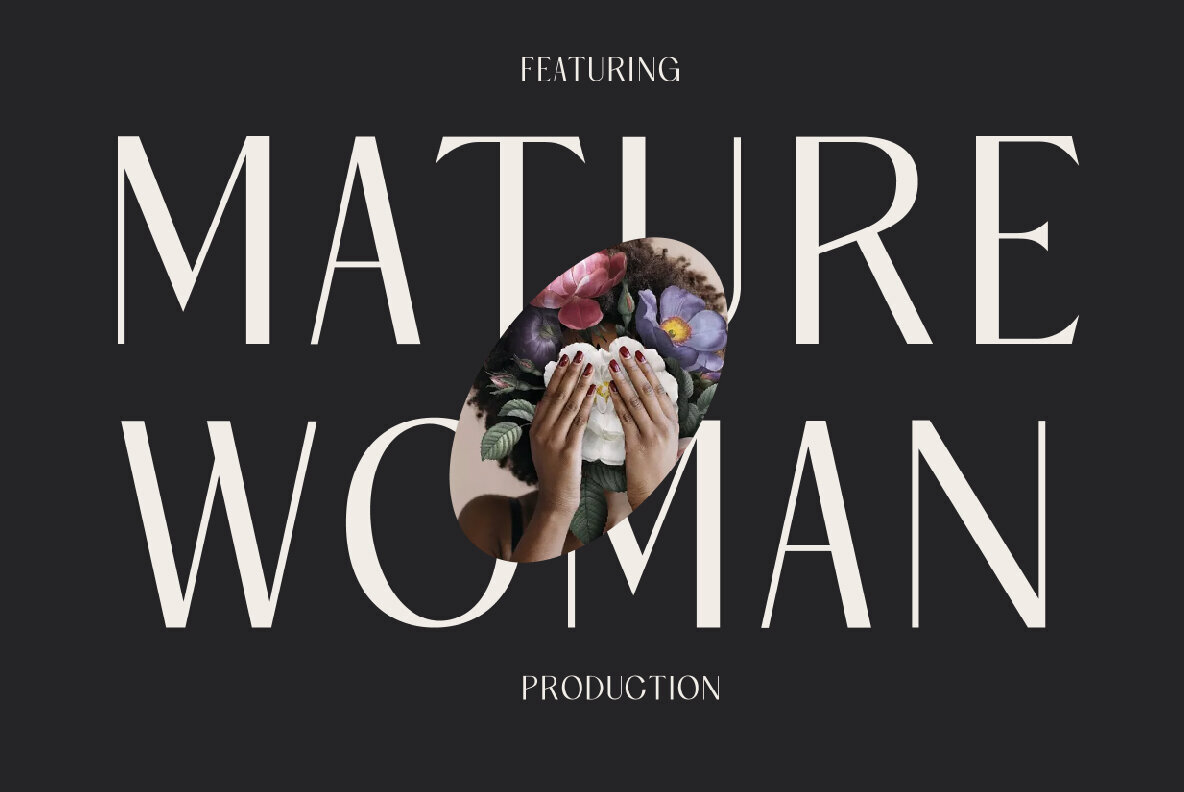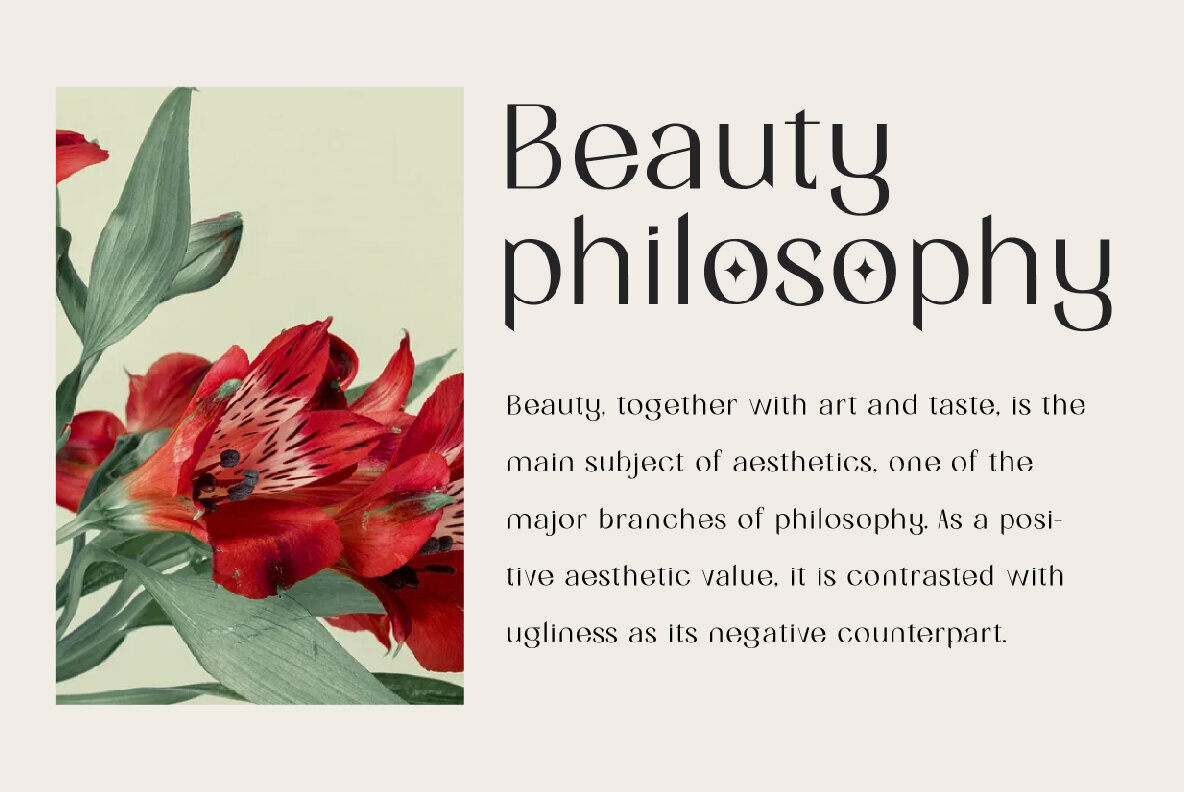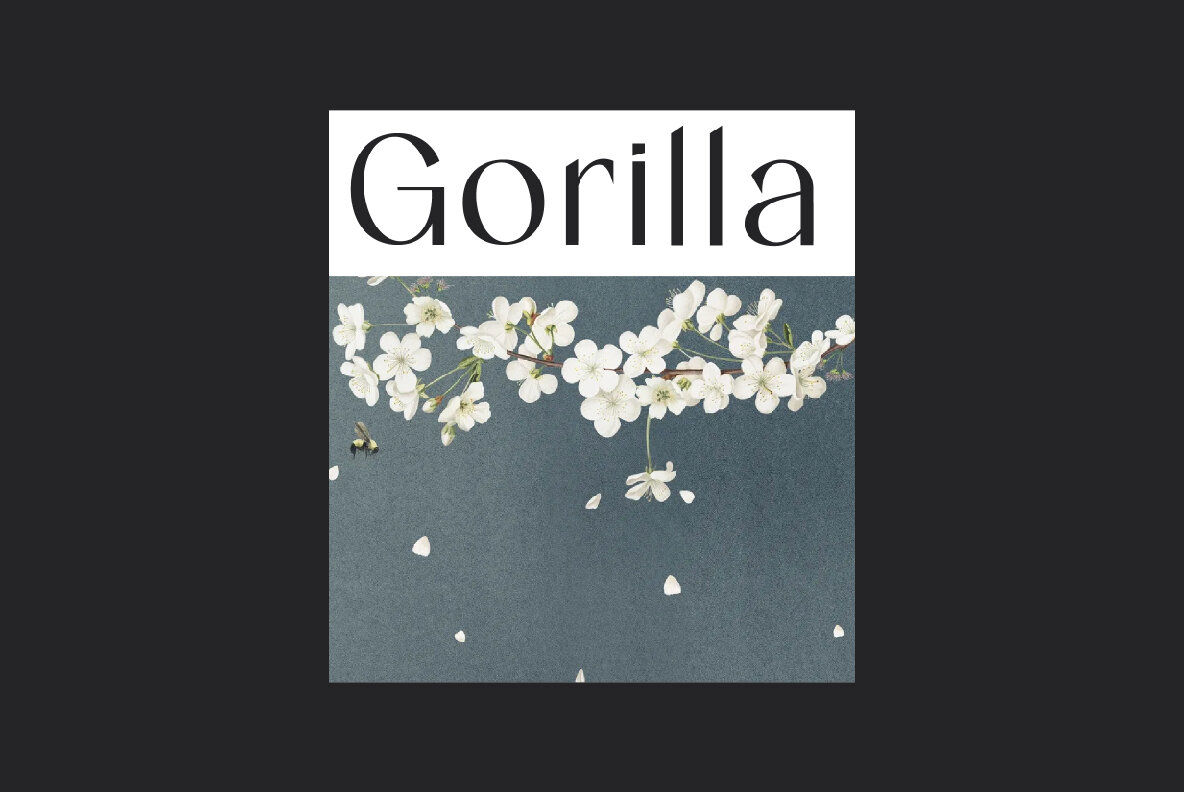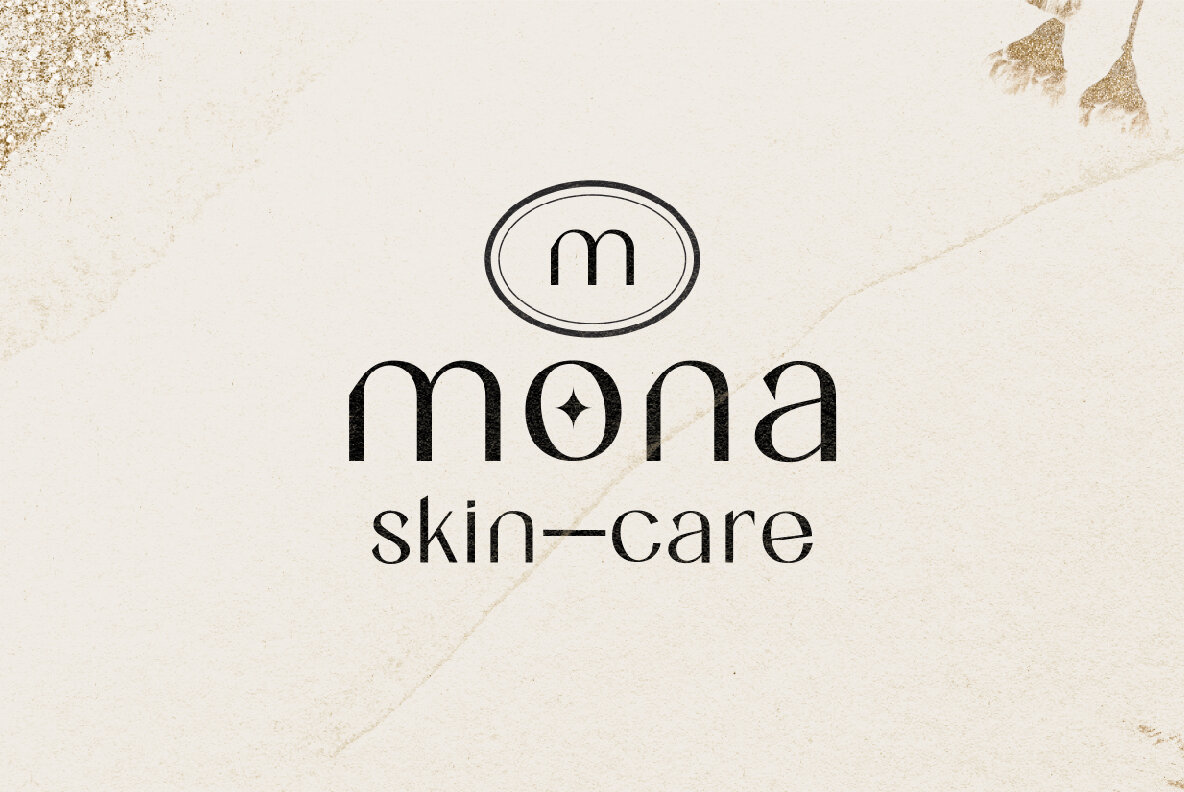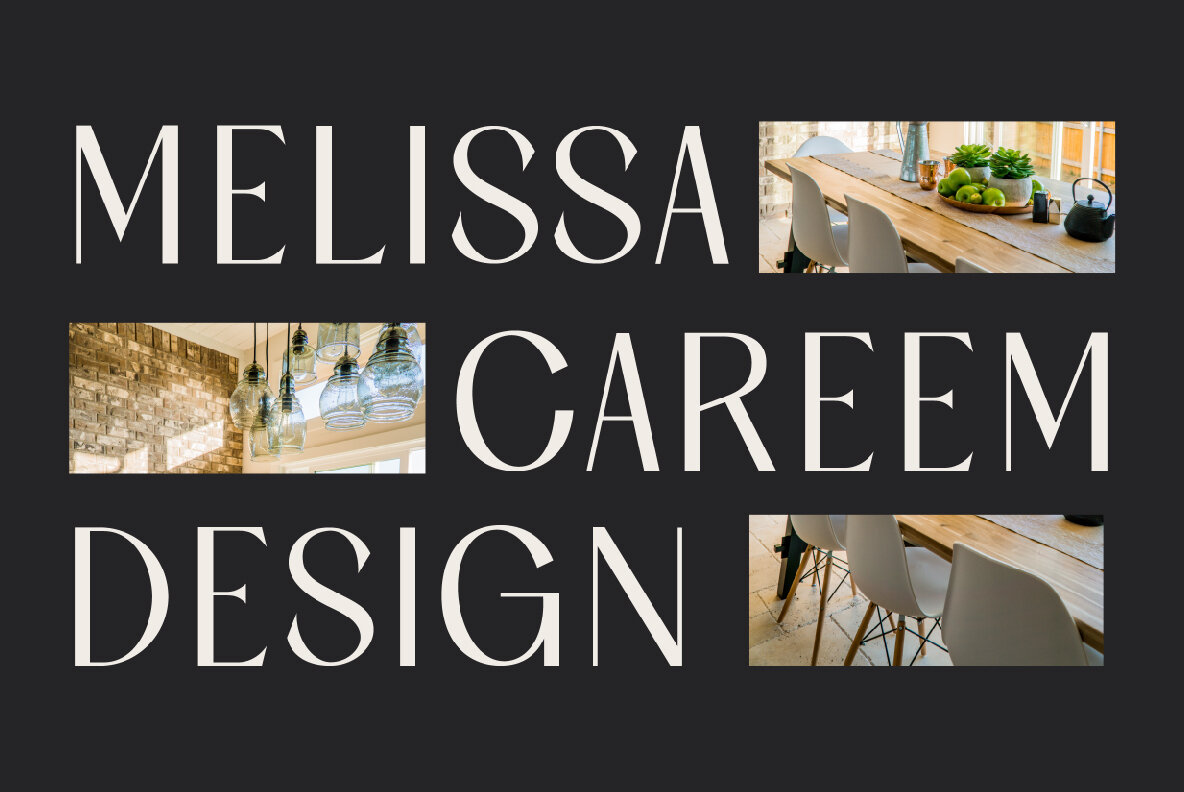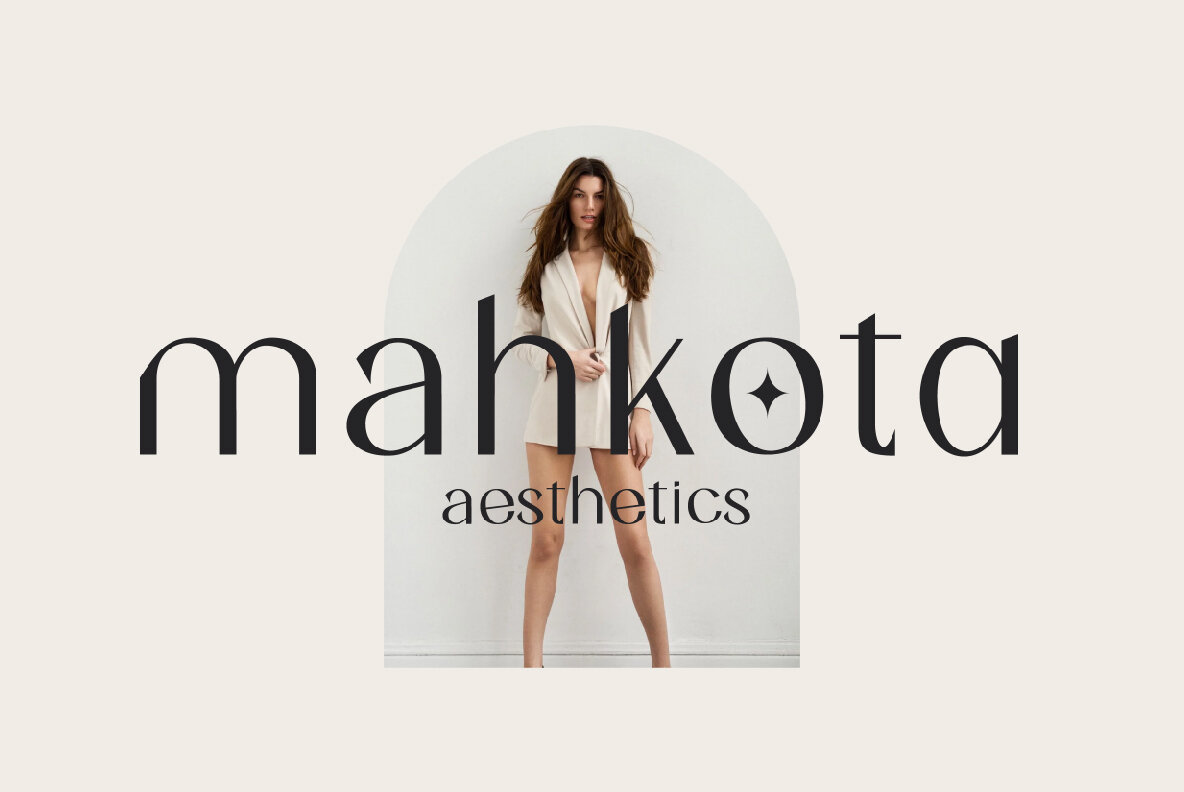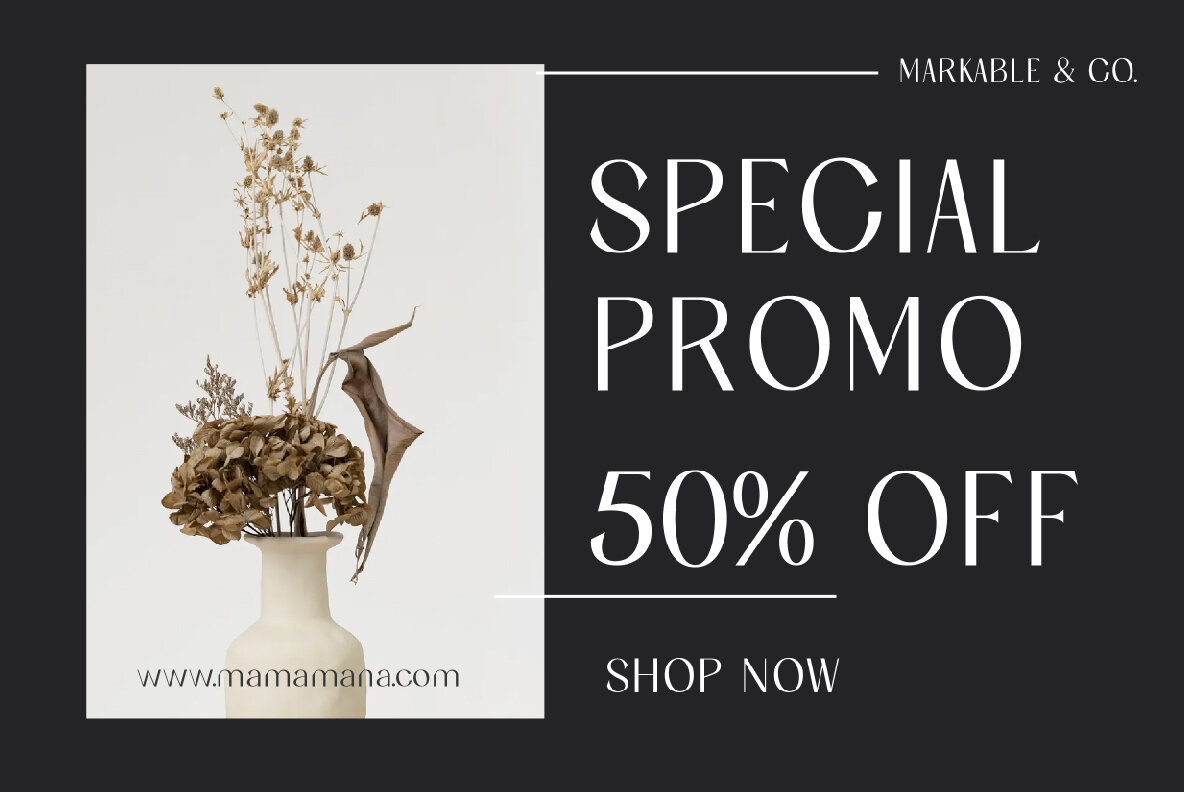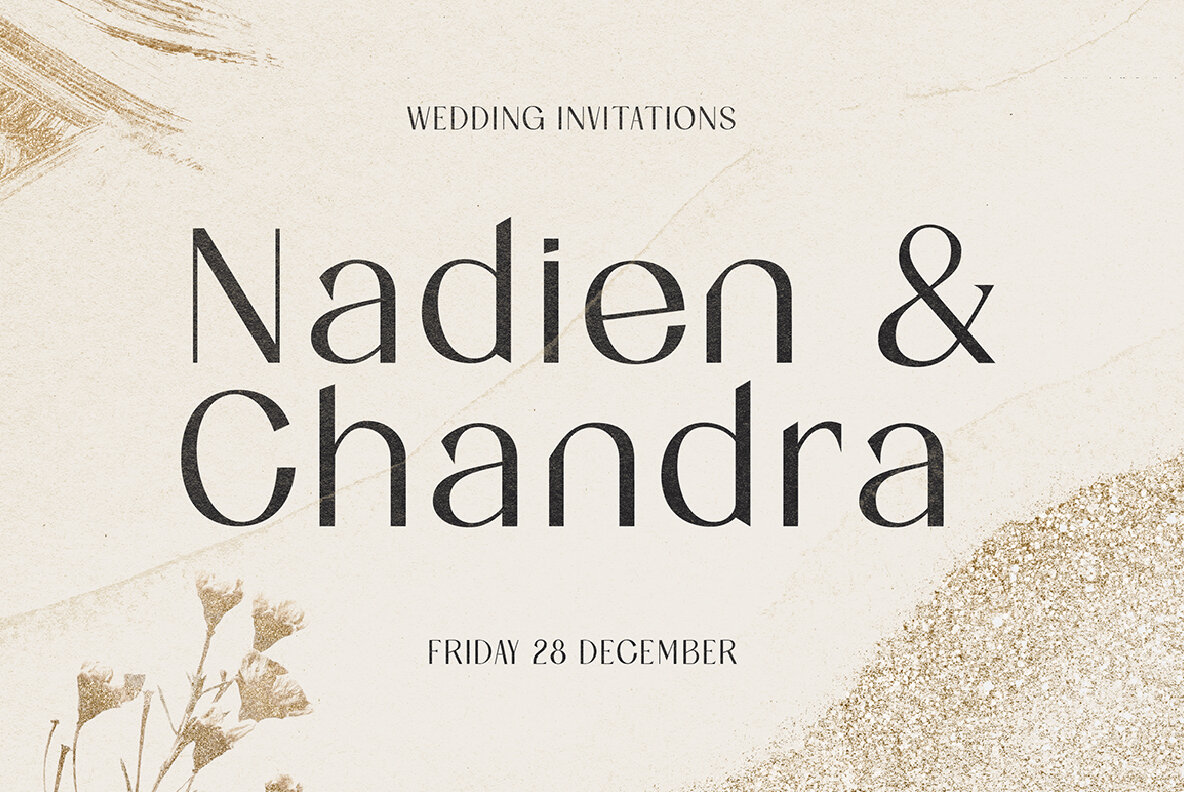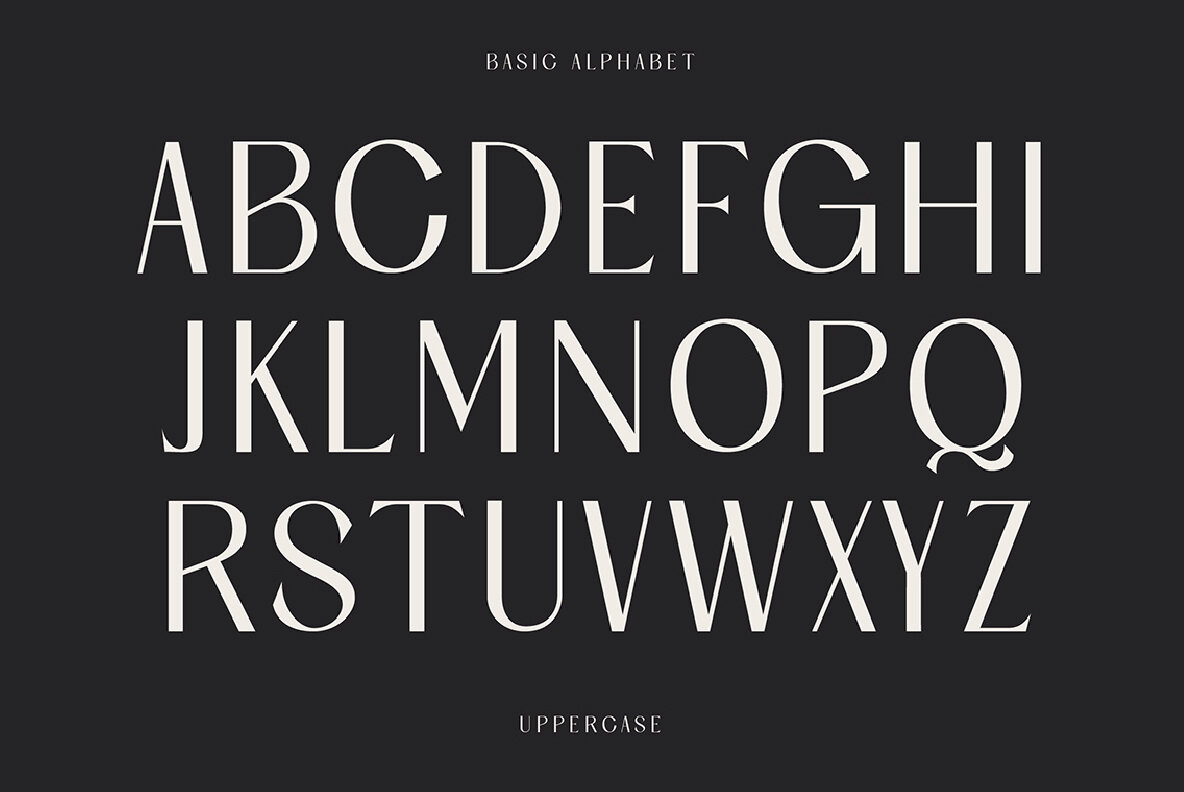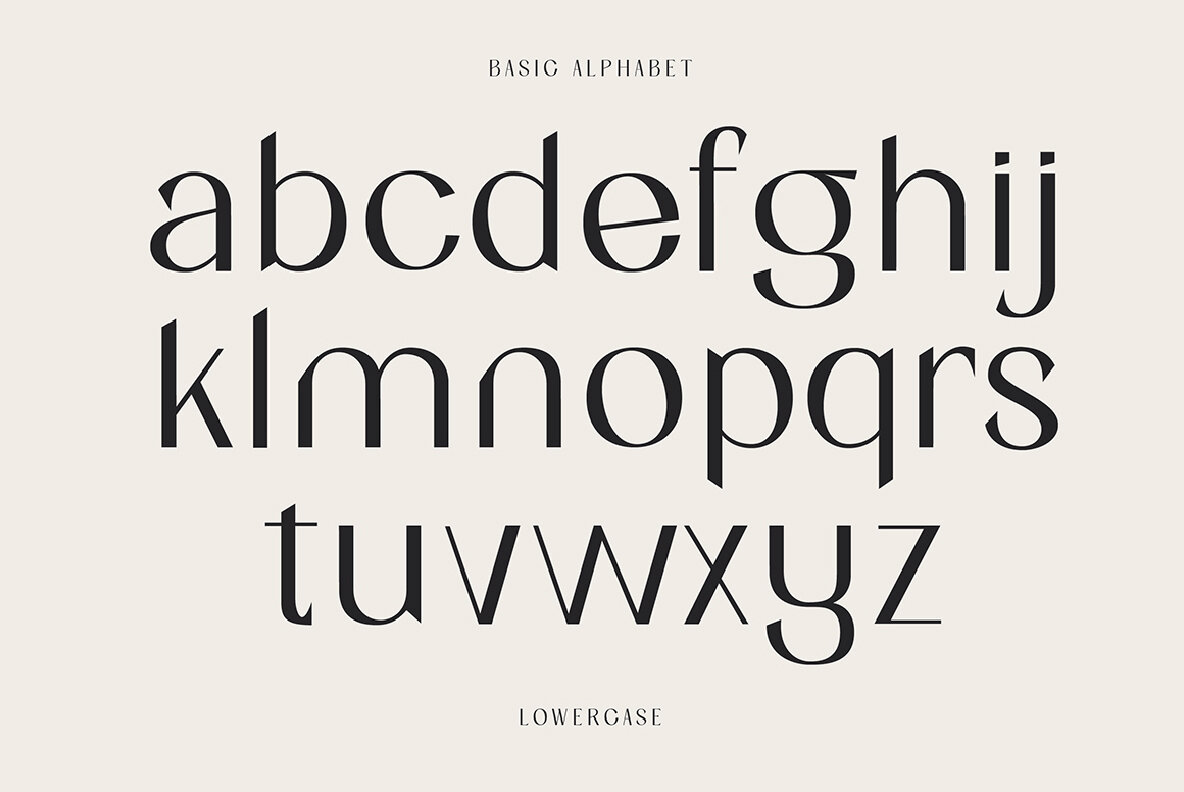
Bagea Font
The Bagea Display Typeface is a striking fusion of simplicity and boldness, designed to make a statement in any project. Whether you're crafting a dynamic movie title, fashion-forward album art, or innovative fashion designs, Bagea provides the visual impact needed to captivate and engage your audience.Bagea Display Typeface: Bold Elegance Unleashed